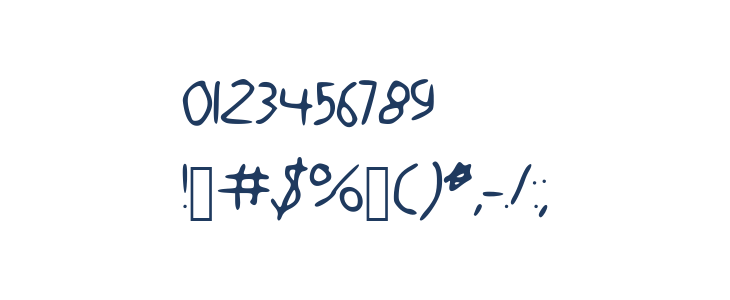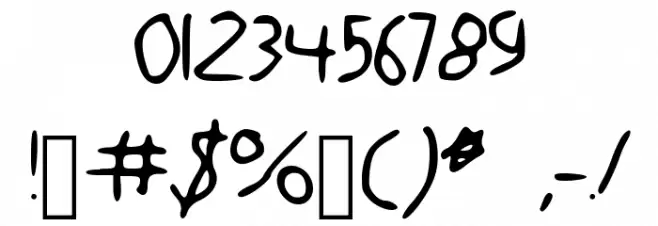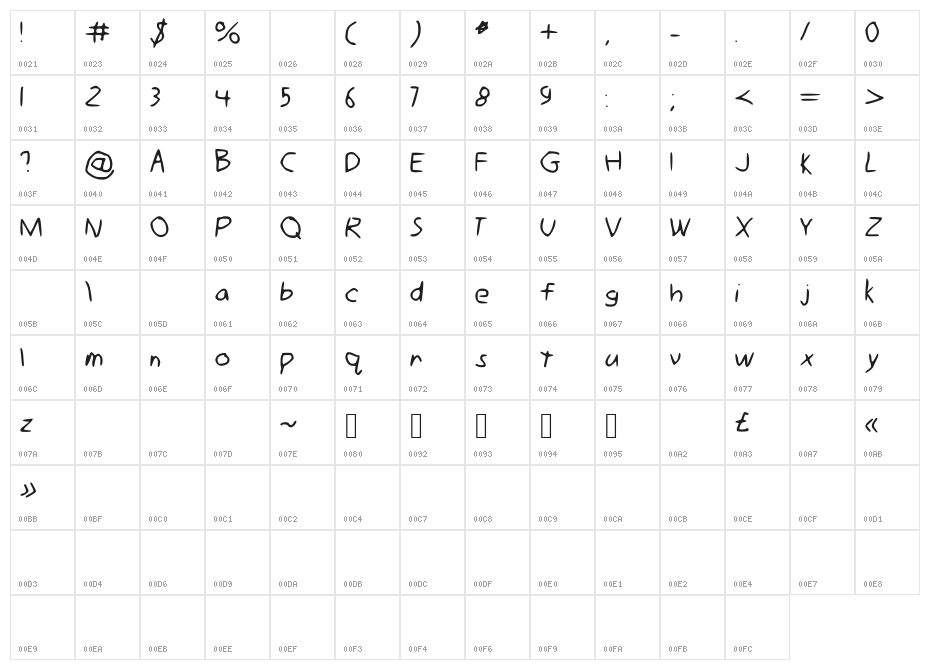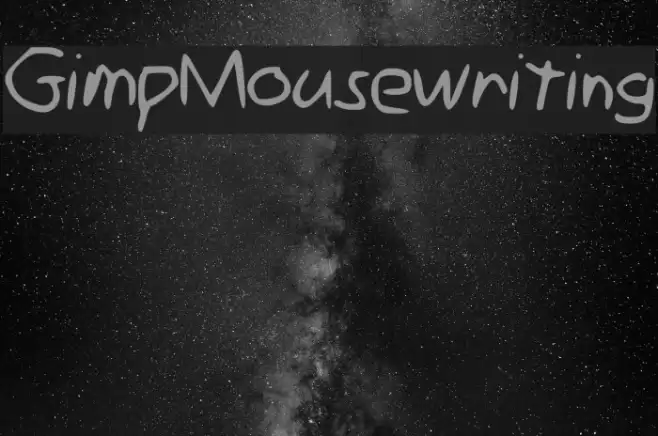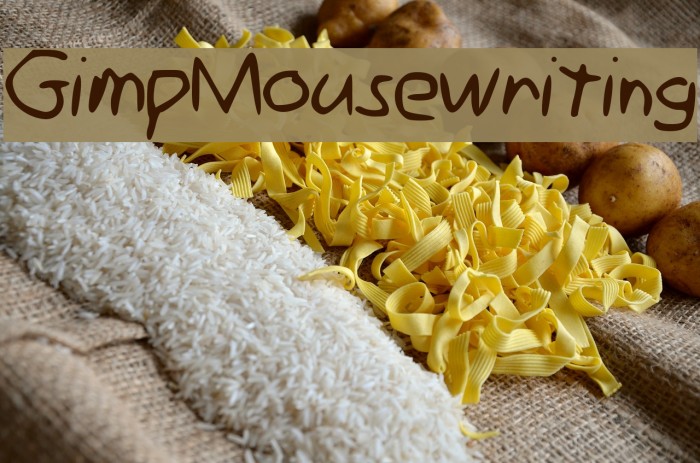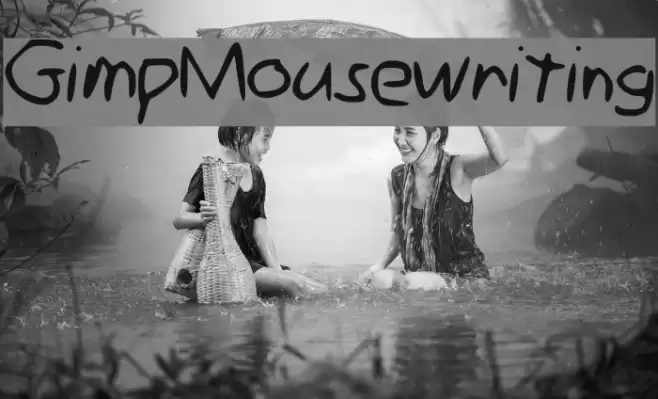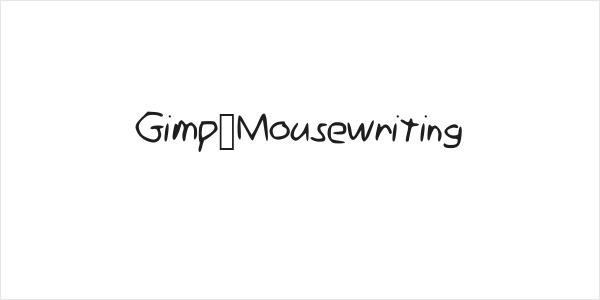
Gimp_Mousewriting Font
Gimp_Mousewriting Description
This font exudes a playful and informal style, reminiscent of handwriting done with a mouse. The characters are uneven and slightly irregular, giving it a casual and approachable feel. The strokes are bold and consistent in thickness, contributing to its legibility despite the informal style. The uppercase and lowercase letters maintain a consistent height, while the numbers and special characters blend seamlessly with the overall design. This font is ideal for projects that require a personal touch or a handwritten aesthetic.